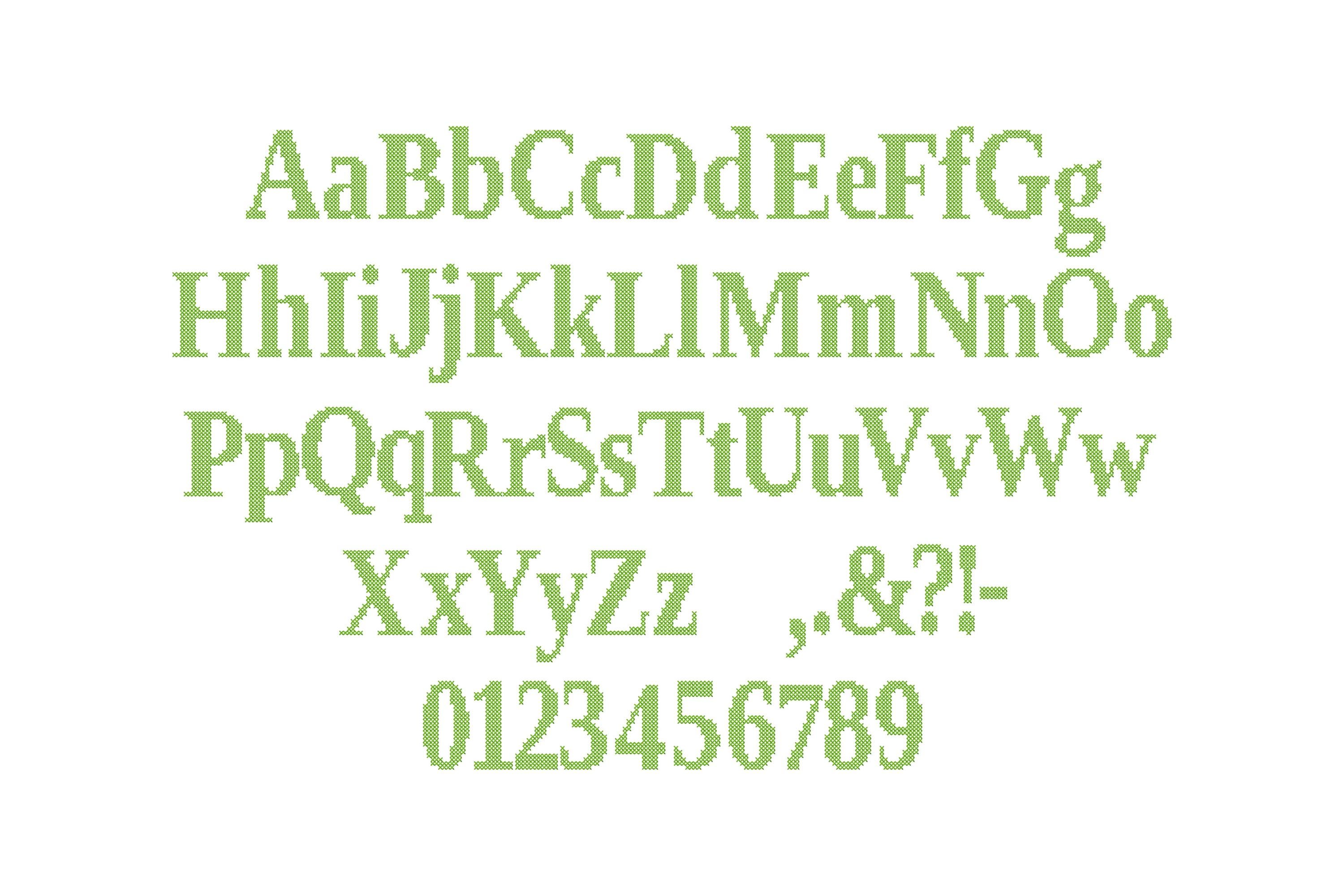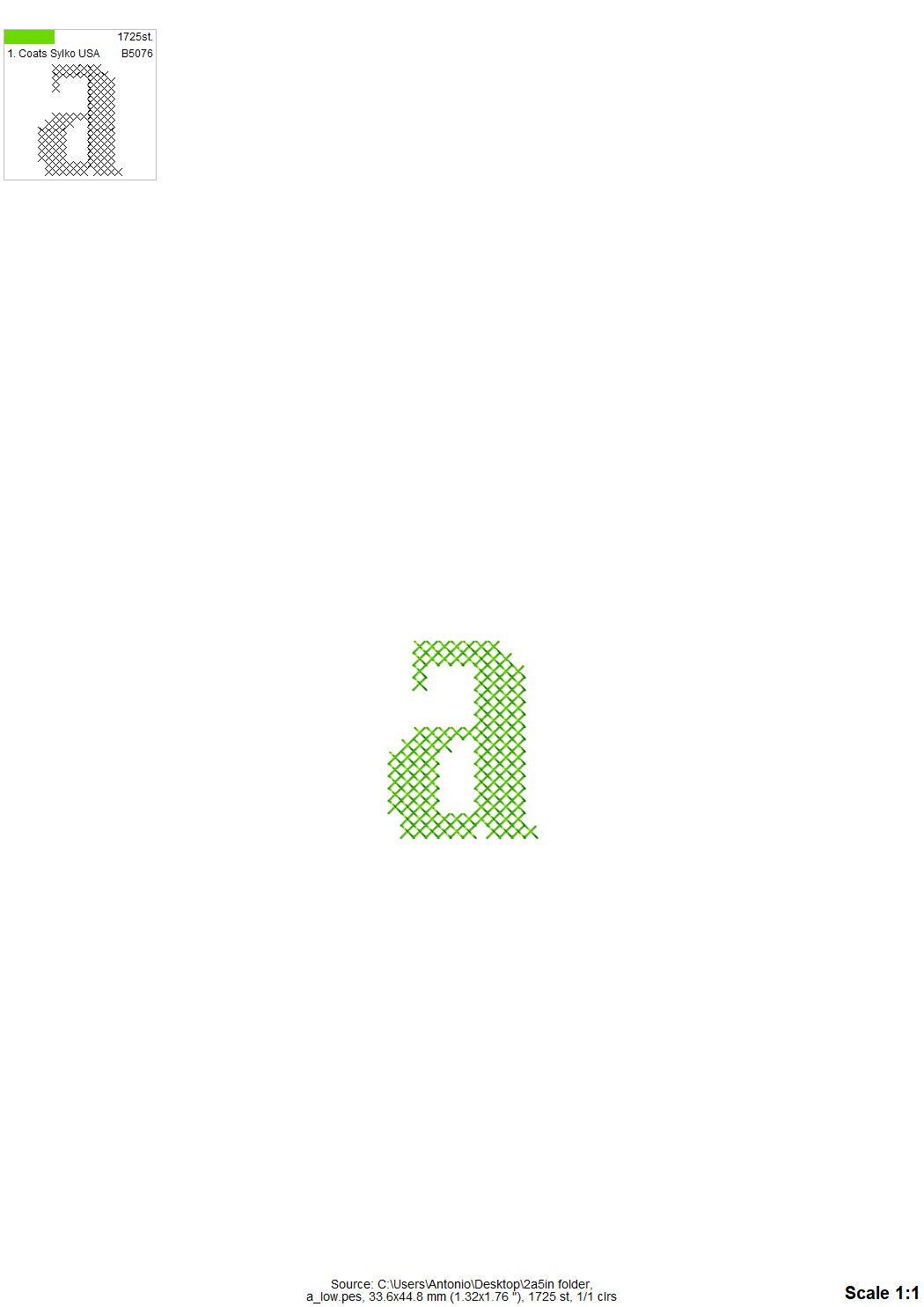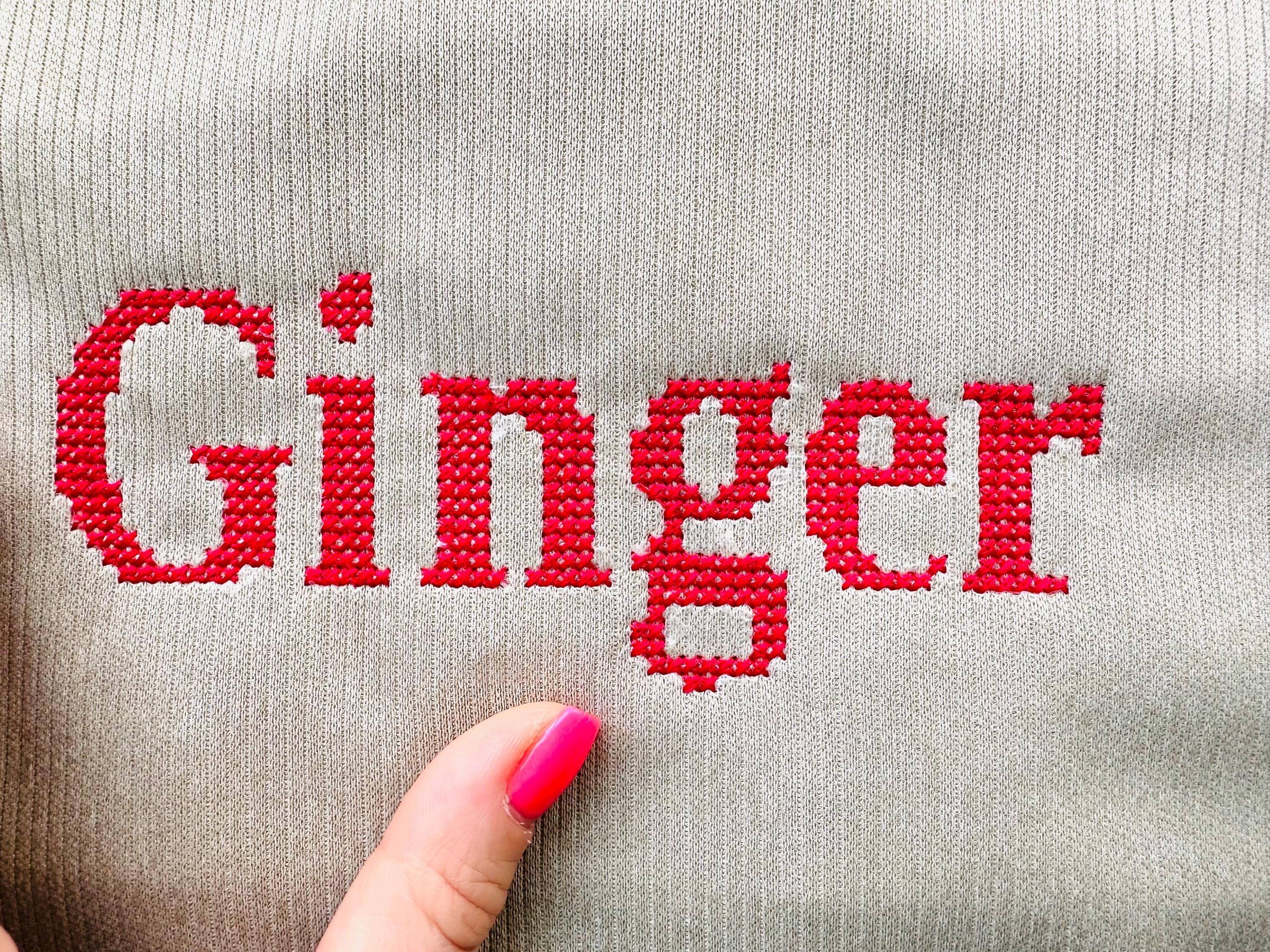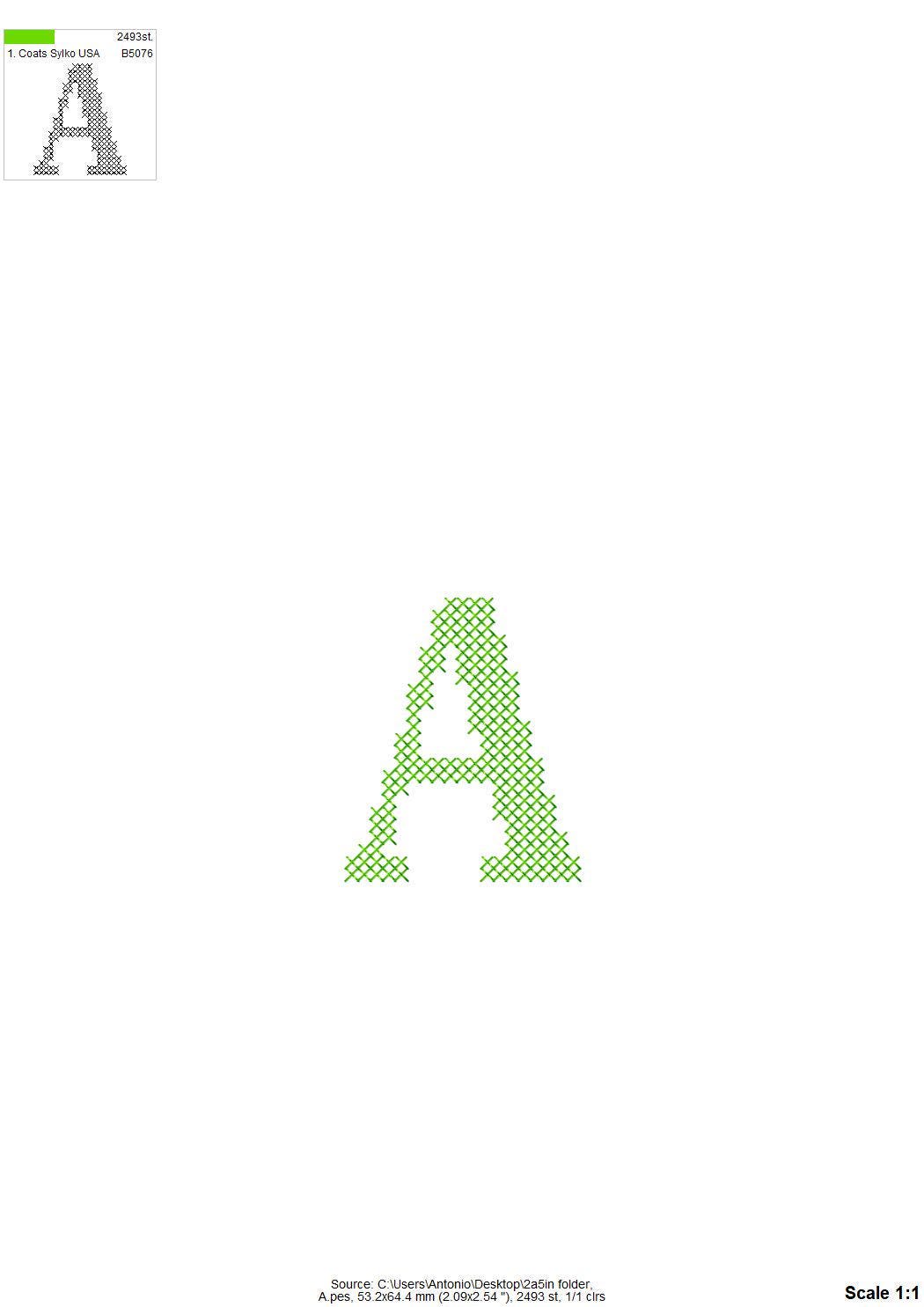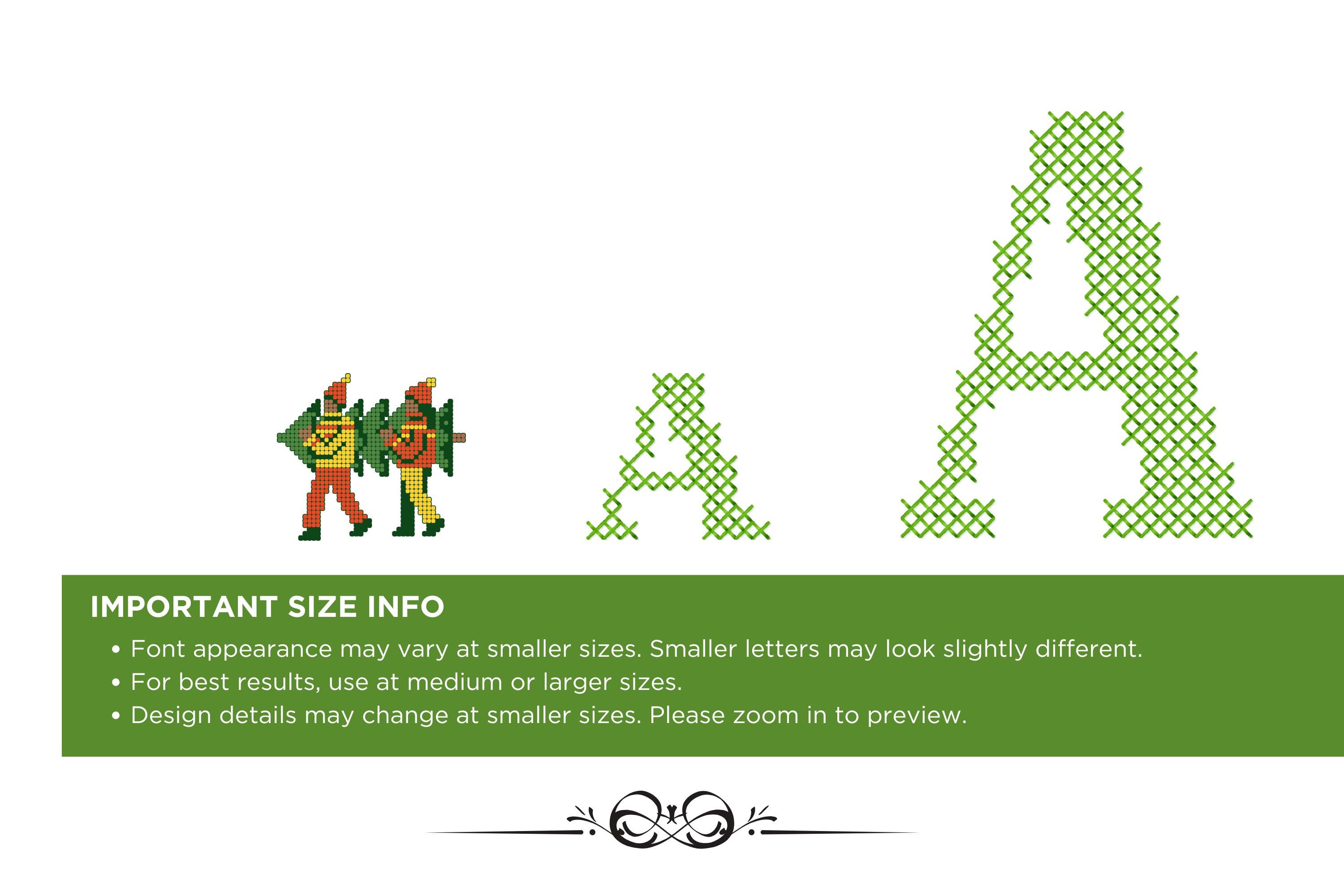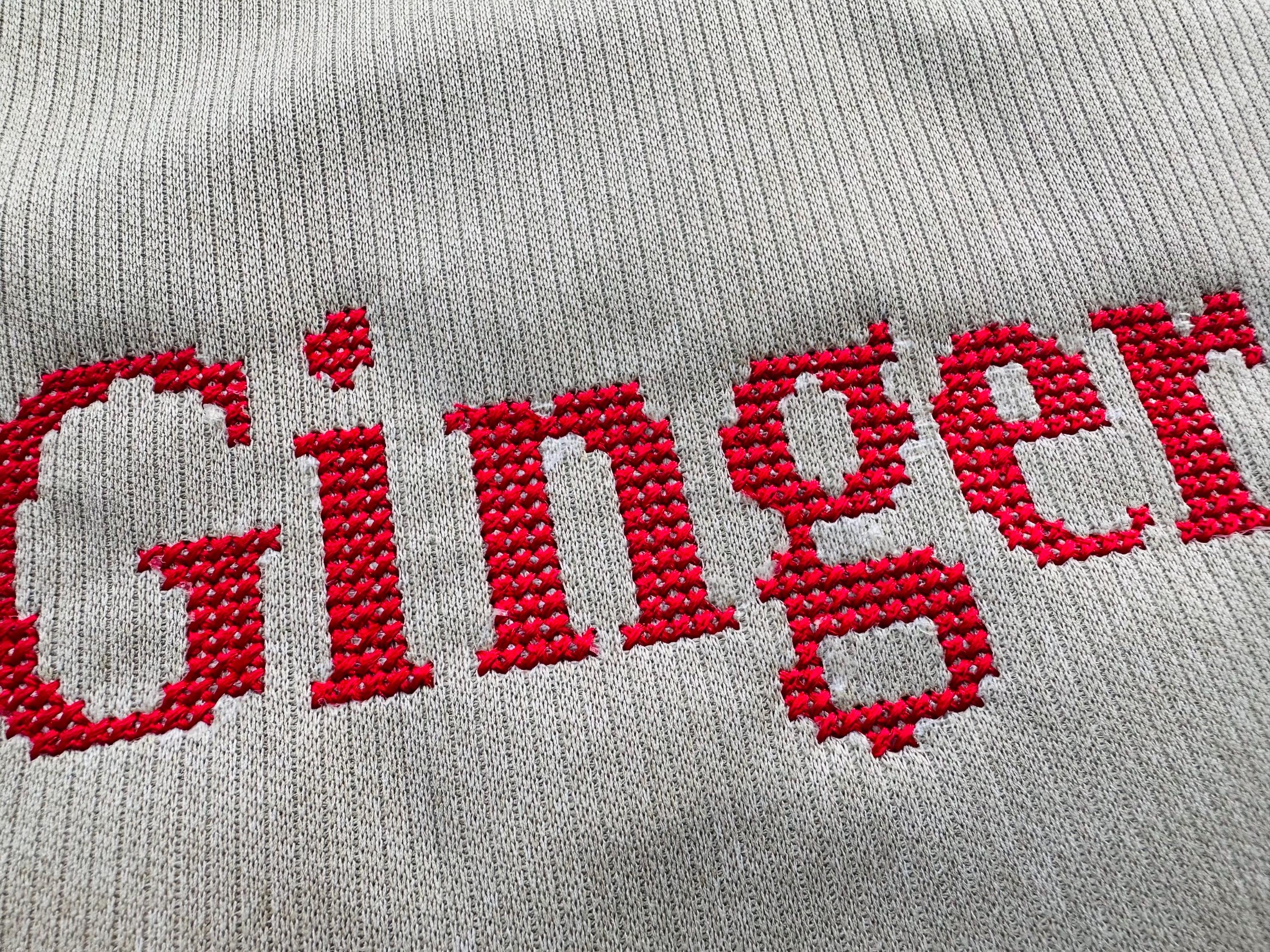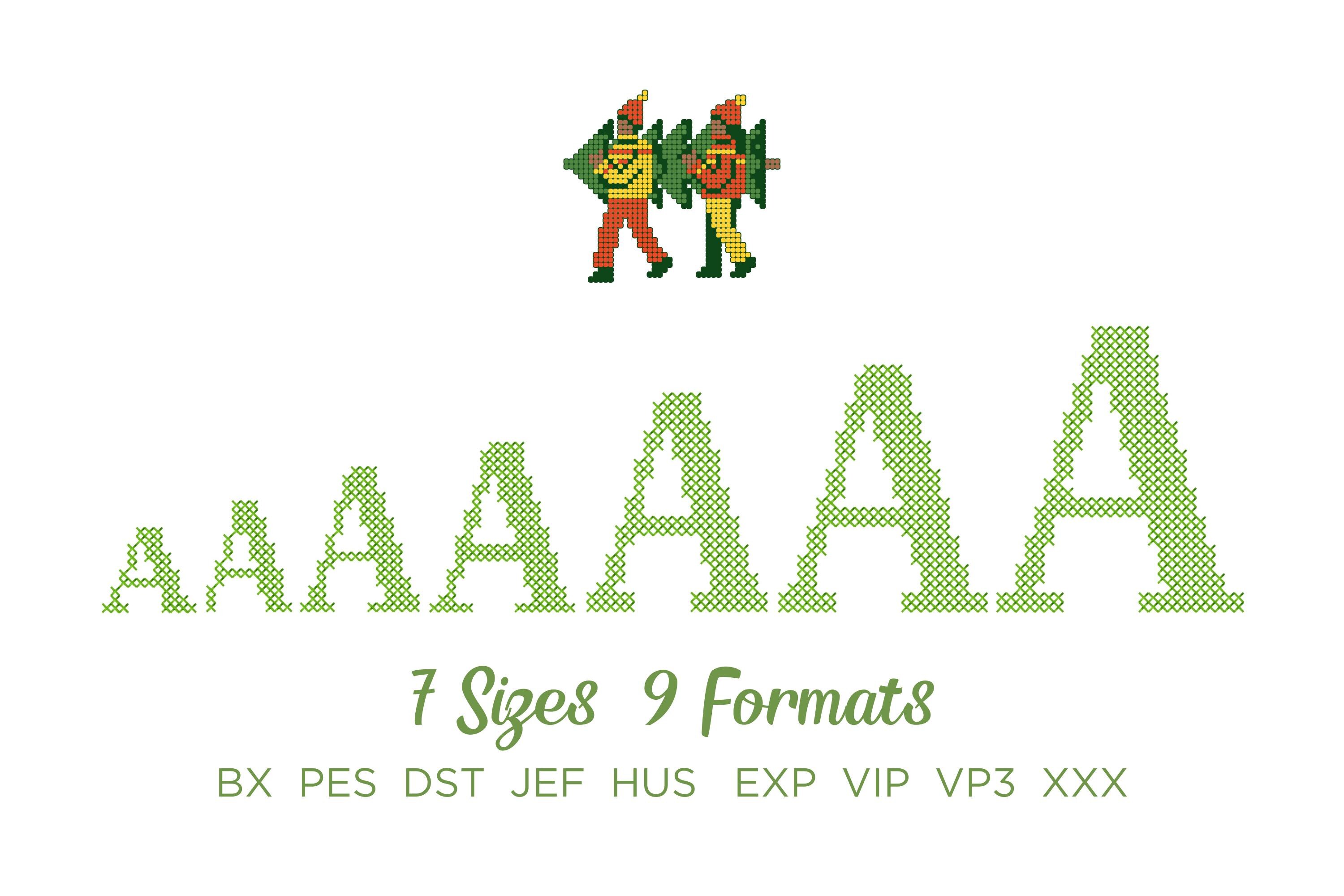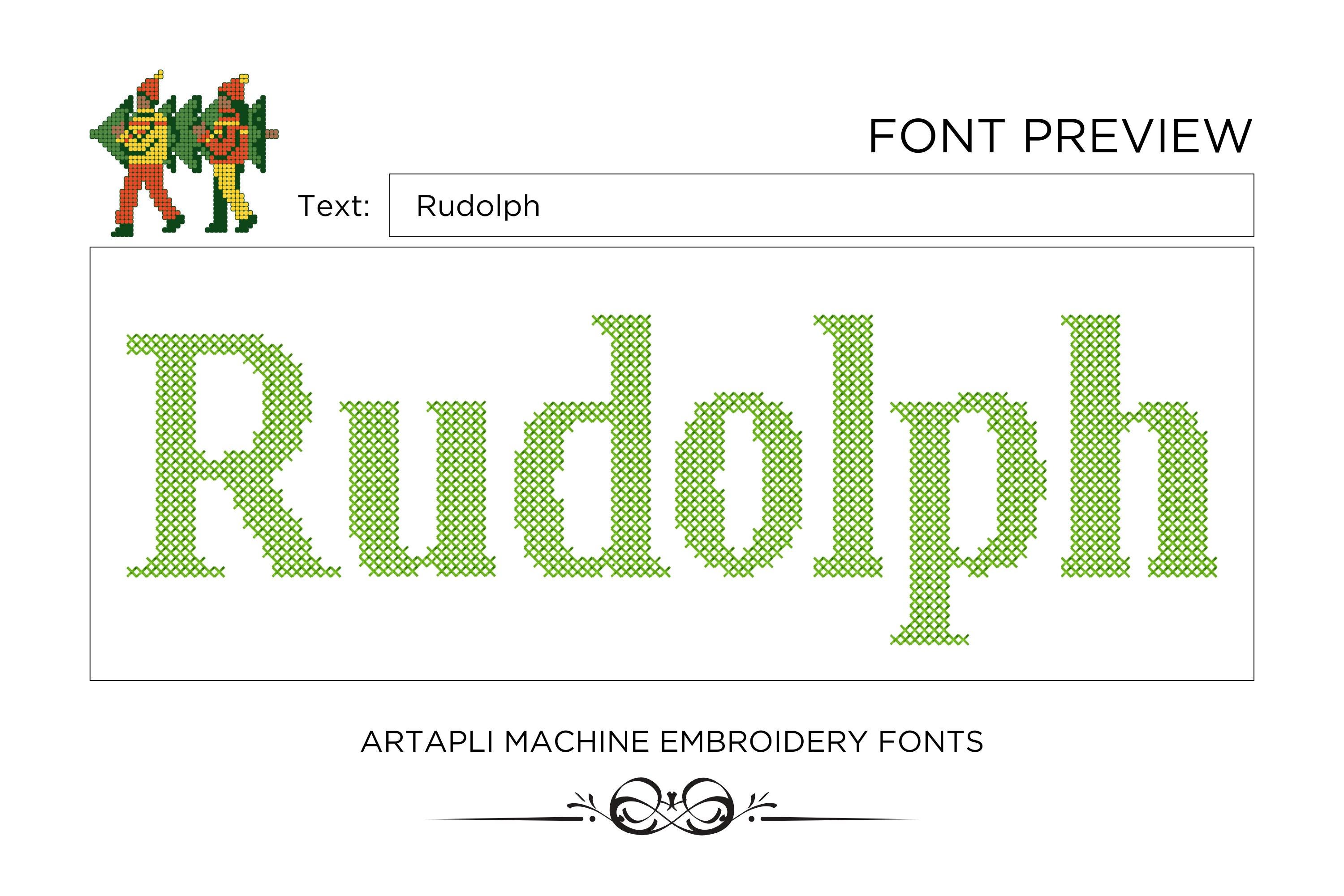
Christmas Cross stitch Font machine embroidery designs alphabet monogram letters and numbers classy Block style Font sizes 1 up to 3.3in, BX
Entire alphabet has uppercase and lowercase letters Aa-Zz, numbers 0-9, and punctuation.
Please note: Font appearance may vary in smaller sizes. Smaller letters may look slightly different. For best results use medium or larger sizes.